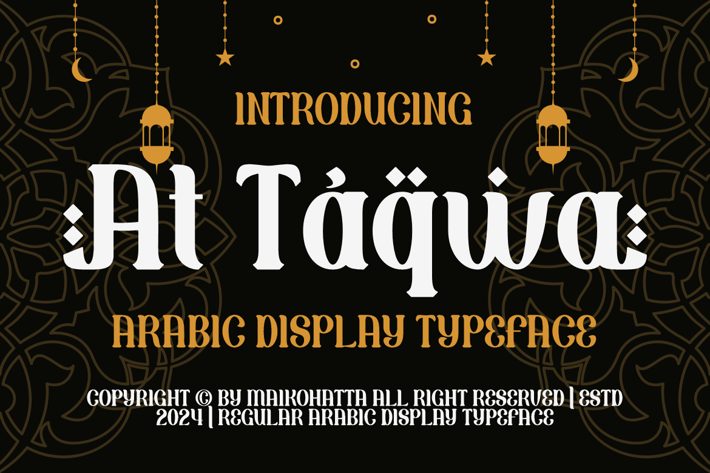
At Taqwa - Arabic Display Typeface
Introducing our new product At Taqwa - Arabic Display Typeface
AT Taqwa - Arabic Display Typeface is a bold and authentic display font. The font is suitable for any branding project like logo, Template Design, esport, and many more. outstanding in a wide range of contexts.